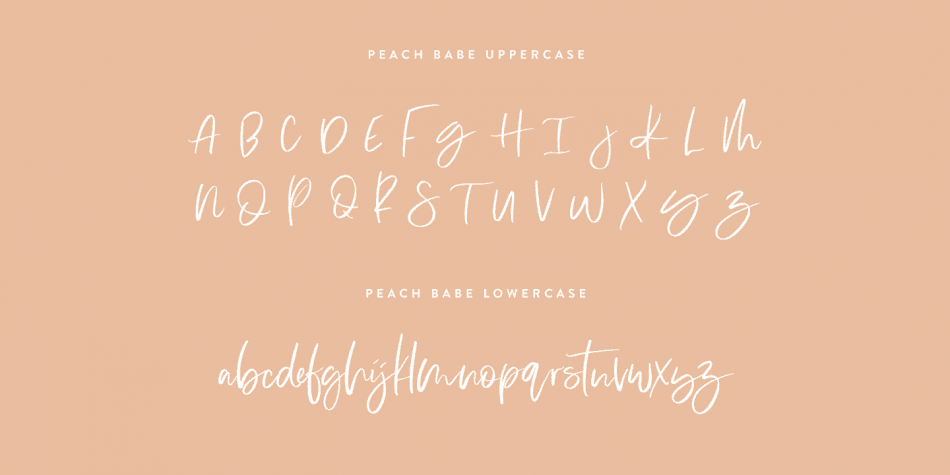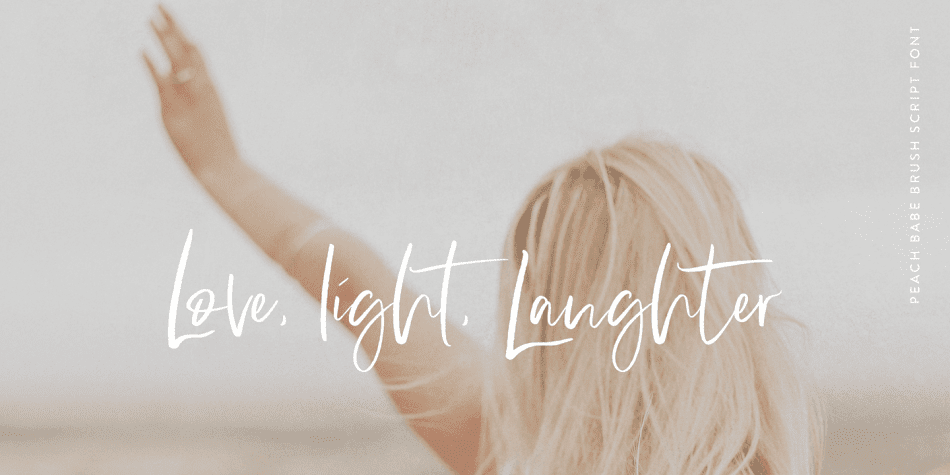
| Peach Babe is a script and modern calligraphy font published by Mel Volkman. |
Peach Babe is a stylish hand lettered brush script font featuring a beautiful, subtle brush texture and an infinite amount of styling opportunities! Peach Babe was created to look as close to authentic hand lettering as possible.
Not only will you find an array of stylized ligatures/alternates, but you’ll have so much fun mixing and matching the upper and lowercase letters to give each word a truly personalized, hand lettered vibe.
Peach Babe pairs beautifully with many fonts and can be used in a variety of different scenarios! Perfect for many design projects such as logo design, branding, blog graphics, stylizing quotes, wedding stationery, art prints, collateral design, packaging, social media, and so on.